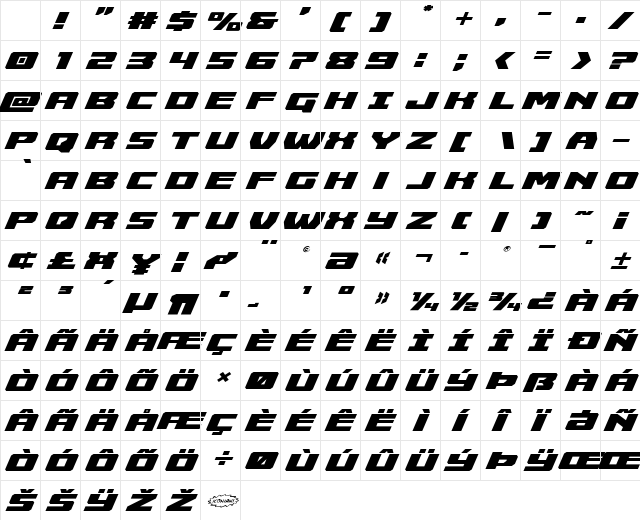
Complete Cruiser Fortress Expanded Italic glyph index. Displaying only characters natively supported by Cruiser Fortress Expanded Italic font.
Cruiser Fortress Expanded Italic is a composed and adaptable typeface that performs quietly and consistently across a wide range of design contexts. The slanted form adds forward momentum and visual energy.